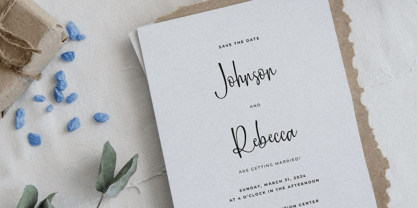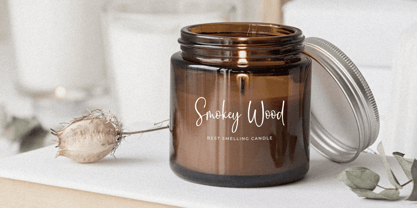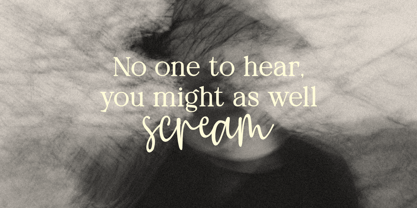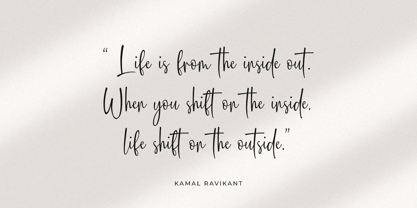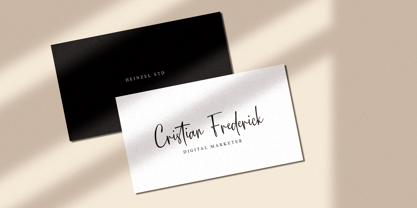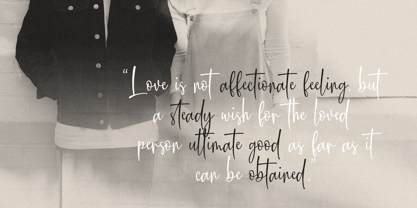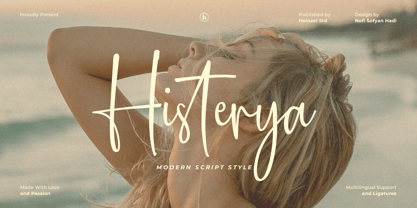
Histerya
The Histerya Font Family was designed by Nofi Sofyan Hadi and published by Heinzel Std. Histerya contains 1 styles. More about this family
Histerya is a modern script font that blends elegance, warmth, and a natural handwritten flow. Designed with smooth curves and beautiful letter connections, Histerya adds a touch of sophistication to any design project. Perfect for branding, wedding invitations, social media posts, logos, and lifestyle designs, this font brings a personal and stylish touch to your typography. Histerya includes ligatures, alternates, and multilingual support, making it versatile and easy to customize for various languages and creative projects. Its graceful strokes and balanced rhythm make it ideal for both digital and print use. Bring your creative vision to life with the charming and passionate handwritten style of Histerya Script Font — made with love and attention to detail.